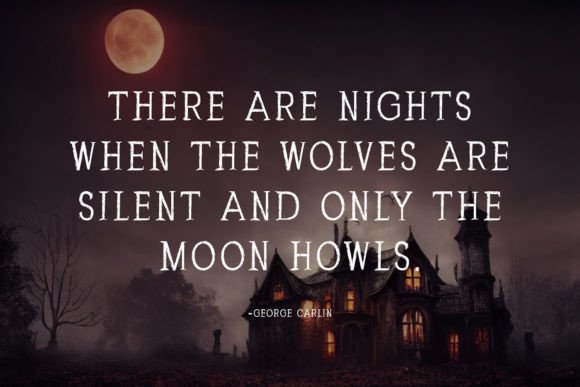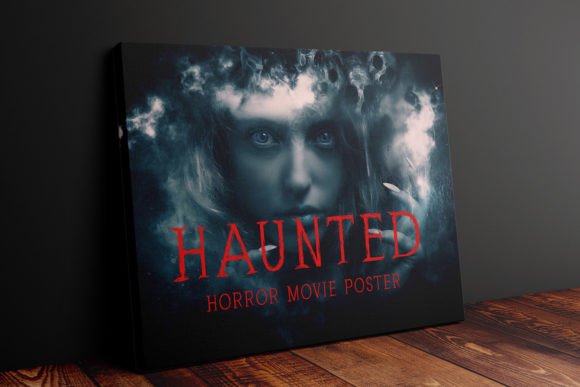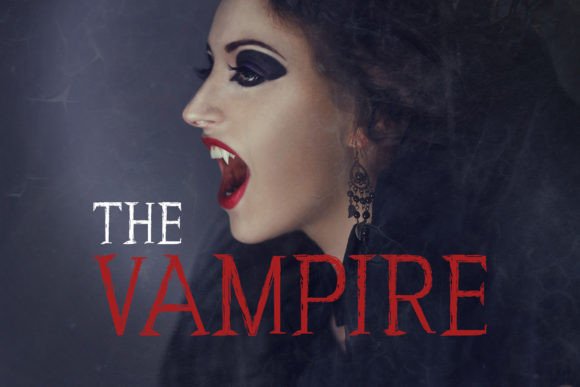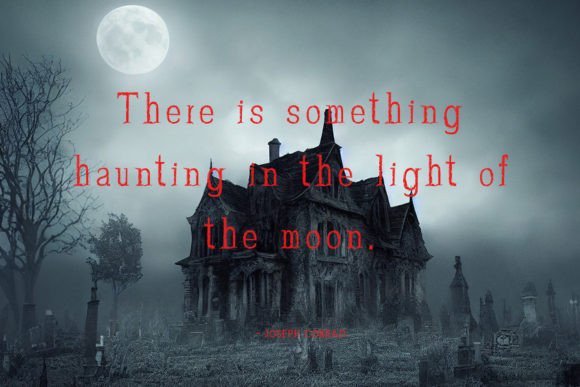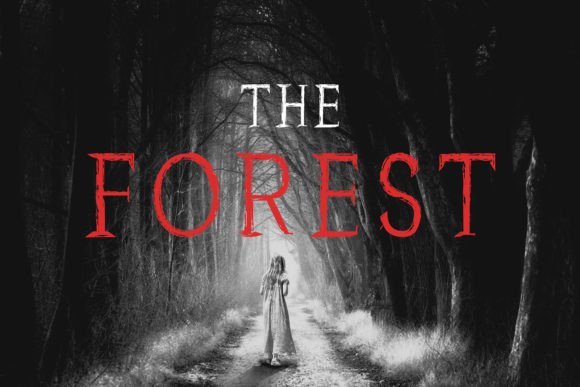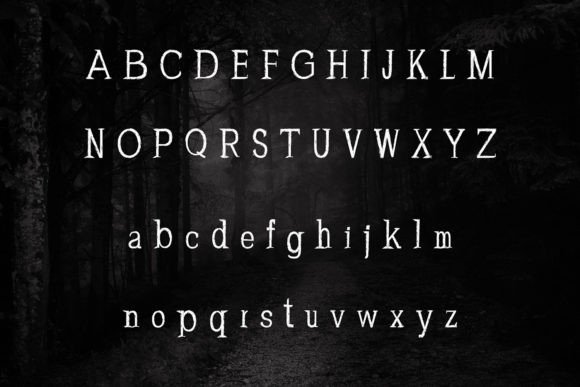
Unleash the Horror: Introducing Elion Font, the Perfect Choice for Spooky Designs
Are you a designer or crafter looking for a font that can add a touch of horror and mystery to your projects? Look no further than Elion Font, a horror-style, mysterious handwritten display font that’s perfect for creating thrilling designs for Halloween or other horror-themed projects. In this article, we’ll dive into the features and benefits of Elion Font, and explore how you can use it to take your designs to the next level.
The Scary and Creepy Vibe of Elion Font
Elion Font is designed to evoke a sense of fear and unease, making it the perfect choice for horror-themed projects. Its irregular and handwritten style gives it a creepy, organic feel that’s sure to send shivers down the spine. The font’s distressed texture and uneven lines add to its eerie atmosphere, making it perfect for creating designs that are both spooky and captivating.
Perfect for Halloween and Horror-Themed Projects
Halloween is just around the corner, and Elion Font is the perfect choice for creating spooky and eye-catching designs for the holiday. From creepy posters and flyers to haunted invitations and party decorations, Elion Font is sure to add a touch of horror and excitement to your projects. But Elion Font isn’t just limited to Halloween – it’s also perfect for crafting unique horror-themed projects, such as movie posters, book covers, and even tattoo designs.
Features and Benefits of Elion Font
So what makes Elion Font so special? Here are just a few of its key features and benefits:
- Horror-style design: Elion Font is designed to evoke a sense of fear and unease, making it perfect for horror-themed projects.
- Mysterious and creepy vibe: The font’s irregular and handwritten style gives it a creepy, organic feel that’s sure to send shivers down the spine.
- Distressed texture: The font’s distressed texture and uneven lines add to its eerie atmosphere, making it perfect for creating designs that are both spooky and captivating.
- High-quality design: Elion Font is designed to high-quality standards, ensuring that your designs look professional and polished.
How to Use Elion Font in Your Designs
So how can you use Elion Font in your designs? Here are a few ideas to get you started:
- Create spooky posters and flyers: Use Elion Font to create eye-catching posters and flyers for Halloween parties, horror movie screenings, or other spooky events.
- Design haunted invitations: Use Elion Font to create creepy invitations for Halloween parties, horror-themed birthday parties, or other spooky events.
- Craft unique horror-themed projects: Use Elion Font to create unique horror-themed projects, such as movie posters, book covers, and even tattoo designs.
- Add a touch of horror to your branding: Use Elion Font to add a touch of horror to your branding, such as on packaging, labels, or other marketing materials.
In conclusion, Elion Font is a horror-style, mysterious handwritten display font that’s perfect for creating thrilling designs for Halloween or other horror-themed projects. Its scary and creepy vibe is sure to add a touch of horror and excitement to your designs, making it a must-have for designers and crafters of all skill levels. So why wait? Download Elion Font today and start creating your own spooky and eye-catching designs!
Whether you’re a seasoned designer or a crafter looking for a new font to add to your arsenal, Elion Font is sure to impress. Its unique and creepy design makes it perfect for a wide range of projects, from Halloween decorations to horror-themed branding. So don’t miss out on this amazing font – download Elion Font today and start creating your own thrilling designs!